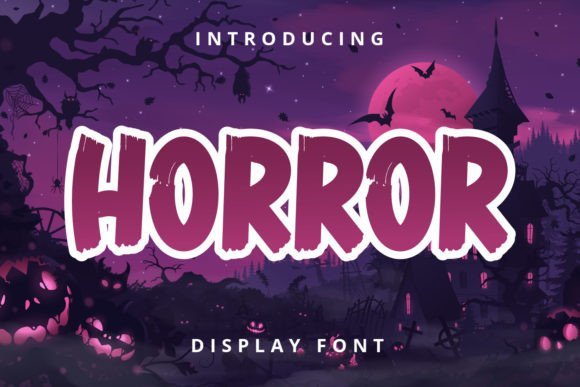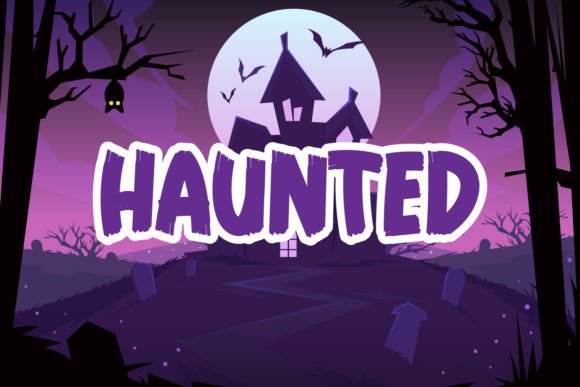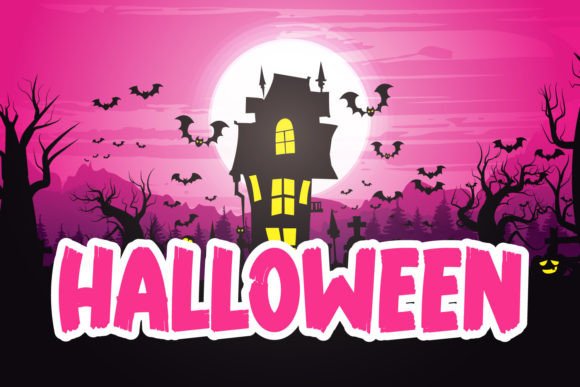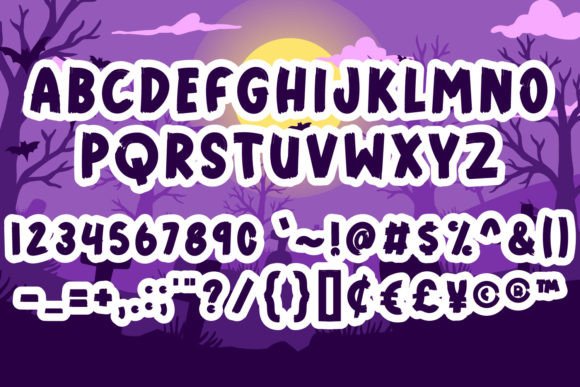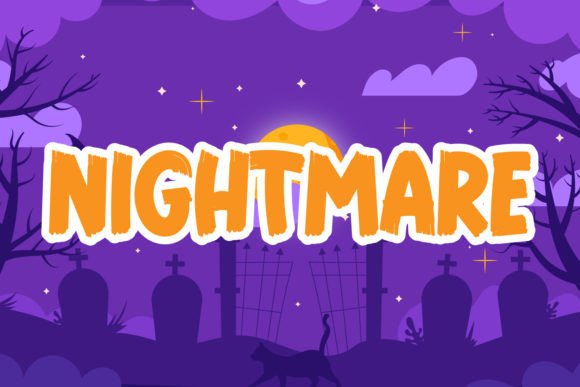
When Fonts Come Alive: Unleashing the Frightful Charm of Horror Font
It’s 2 AM, and you’re browsing through your font library, searching for the perfect typeface to give your Halloween design a spooky twist. Suddenly, a font catches your eye – its bold, playful lines and quirky charm transport you to a world of creative possibilities. This is the moment when you stumble upon Horror Font, a unique display font that embodies the spirit of fun and authenticity.
Horror Font is more than just a typeface; it’s a key to unlocking the perfect blend of spooky and fun in your designs. With its friendly and brush-like style, it’s an ideal choice for Halloween-themed projects, especially when paired with vibrant colors. Whether you’re a seasoned designer or a creative enthusiast, Horror Font is a valuable addition to your toolkit, offering endless possibilities for crafting unique and captivating visuals.
Horror Font Key Features
- Font Style: Horror Font is a sans-serif, gothic-inspired font, known for its eerie and mysterious feel.
- Unique Characteristics: Distinctive features include uneven, irregularly spaced lines, and a range of stylistic alternates to enhance the font’s eerie atmosphere.
Horror Font Review
Horror Font is a bold, gothic-inspired font that’s sure to grab attention. It works well in situations where you want to convey a sense of eeriness or foreboding. ✨ I love how the font’s irregular lines and jagged edges evoke a sense of tension and unease. It’s perfect for horror movie posters, haunted house attractions, or any other project that requires a spooky vibe.
The font comes in a variety of styles, from the elegant and refined to the crude and brutal. ✨ This flexibility makes it easy to find a version that fits your specific needs. Whether you’re going for a creepy carnival feel or a haunted mansion aesthetic, Horror Font has got you covered.
- ⚠️ Limited legibility: Horror Font can be difficult to read, especially in large blocks of text. This makes it best suited for short, impactful quotes or headlines.
Overall, I think Horror Font is a solid choice for designers who need a bold, attention-grabbing font. While it has some limitations, its unique style and flexibility make it a valuable addition to any font collection.
The Horror Font is perfect for Halloween-themed designs, spooky invitations, and creepy marketing materials. It can also be used to add a touch of eeriness to educational materials, such as presentations about dark history or supernatural phenomena.
Q: Does Horror Font include any special characters or ligatures?
Yes, Horror Font includes a range of special characters, including accented letters, punctuation marks, and ligatures. These characters are designed to be compatible with a variety of operating systems and font rendering engines.